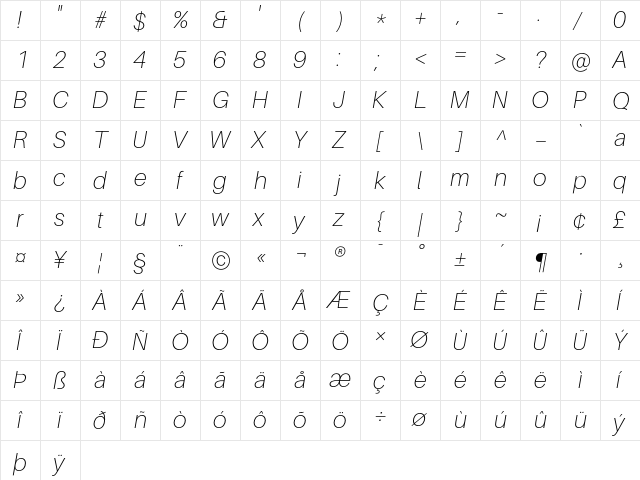
Aileron Thin Italic
| Foundry | Sora Sagano |
| Designer | Sora Sagano |
Design Context for Aileron Thin Typeface
Aileron Thin is a composed and adaptable typeface that performs quietly and consistently across a wide range of design contexts. The slanted form adds forward momentum and visual energy. The delicate stroke weight brings airiness and refinement to layouts.
Pro Tip: Try Aileron Thin for annotation and caption copy alongside an upright companion — the contrast in angle creates a dynamic but ordered typographic system.